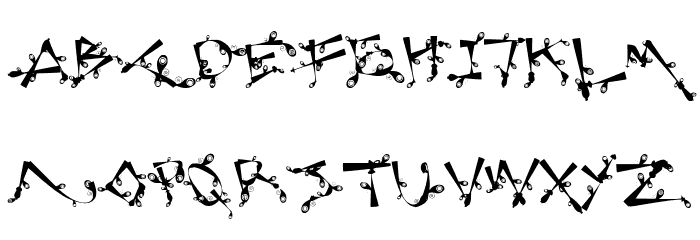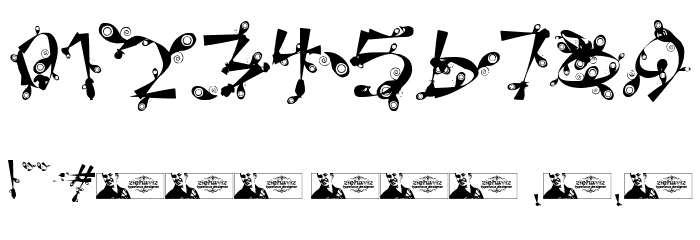
Lost Popnicasiana Font
This font features a whimsical and decorative style, characterized by intricate swirls and curls that embellish each letter and number. The design incorporates playful elements that resemble vines or tendrils, giving it a unique and artistic appearance. The characters are bold and have a slightly irregular form, adding to the font's charm and creativity. This font is highly decorative, making it suitable for projects that require a touch of fantasy or elegance. The overall look is both modern and vintage, with a distinct flair that stands out.
A whimsical, decorative font with intricate swirls and curls.
- Proposed Projects: Ideal for invitations, greeting cards, artistic posters, and branding that requires a unique and playful touch.
- Use Case: Logos, Headlines, Artistic Projects